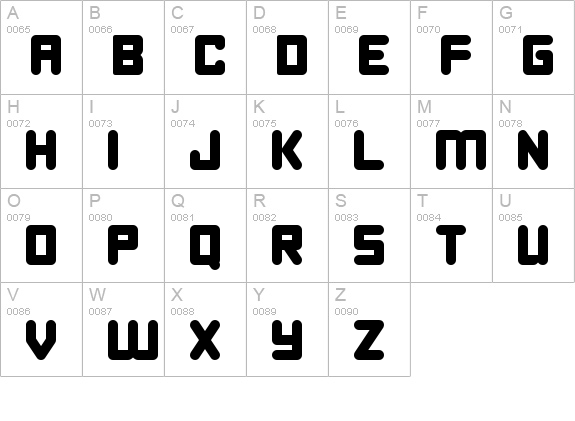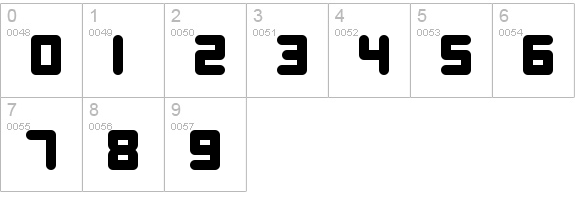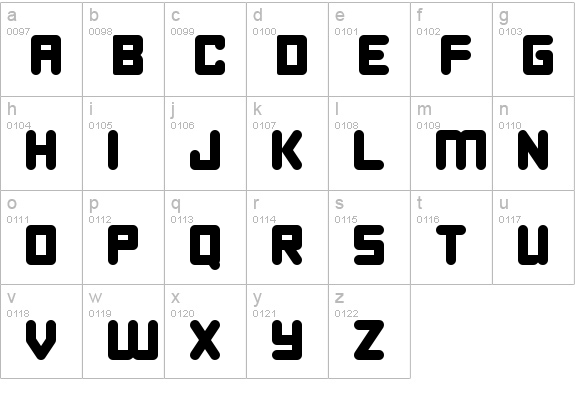
Happy Bomb font is a playful and energetic typeface that radiates joy and positivity. With its bold and bubbly letters, this font is sure to add a touch of fun to any design project. Perfect for greeting cards, posters, invitations, and more, Happy Bomb will bring a smile to anyone who sees it.